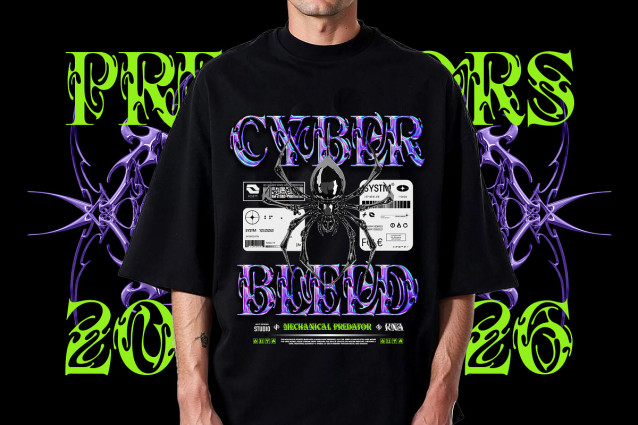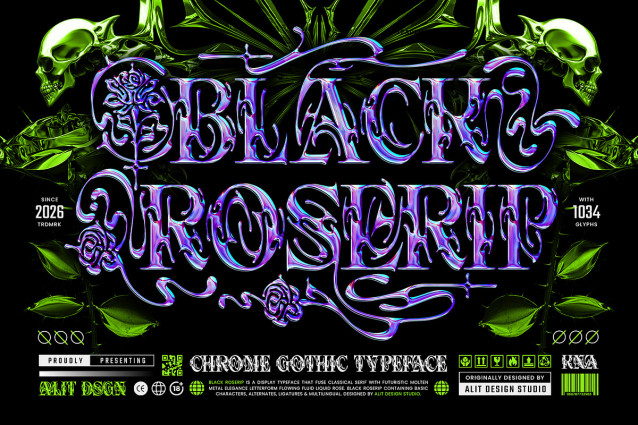
Black Roserip Font a breathtaking display typeface that masterfully fuses classical gothic serifs with a futuristic, molten metal aesthetic. Inspired by dark romance, cyber-gothic culture, and underground streetwear, every letterform flows like liquid chrome subtly entangled with thorny rose motifs. It is aggressive, highly detailed, yet undeniably elegant.
Black Roserip isn’t just a font; it’s a complete typographical toolkit. Boasting a massive library of 1034 glyphs, this typeface offers unparalleled creative freedom. It features 8 distinct Stylistic Sets, ranging from striking characters adorned with intricately drawn roses to sweeping, fluid swashes that interlock beautifully. Combined with an exhaustive list of custom ligatures, Black Roserip allows you to craft bespoke, custom-lettered looks effortlessly.
Whether you are designing a death metal album cover, edgy streetwear apparel, Y2K-inspired posters, dark fantasy book covers, or striking editorial layouts, Black Roserip delivers a high-end, custom-crafted feel to your projects.